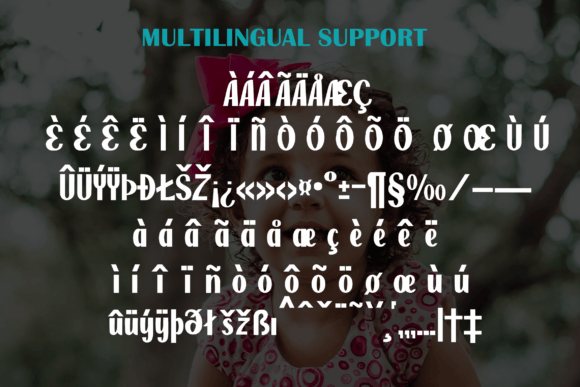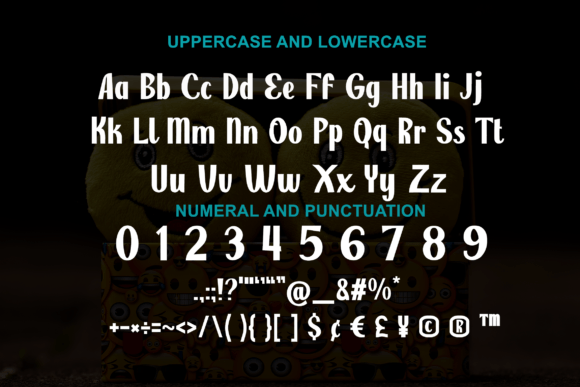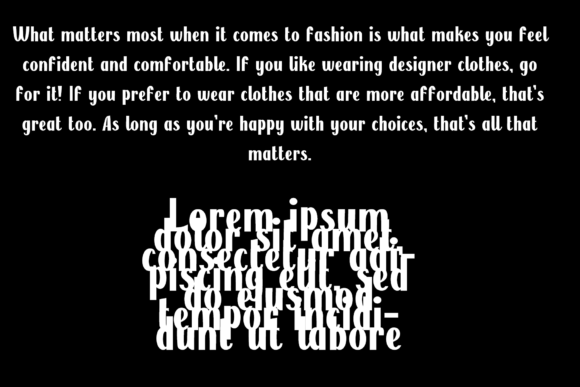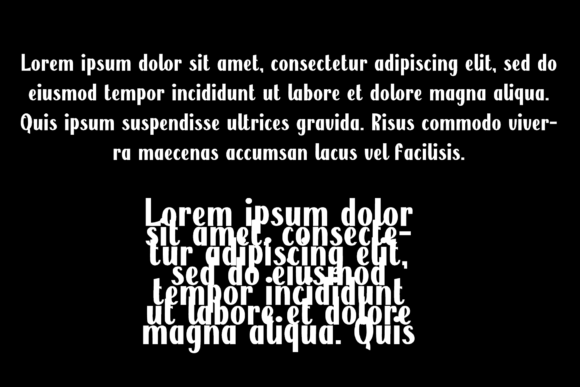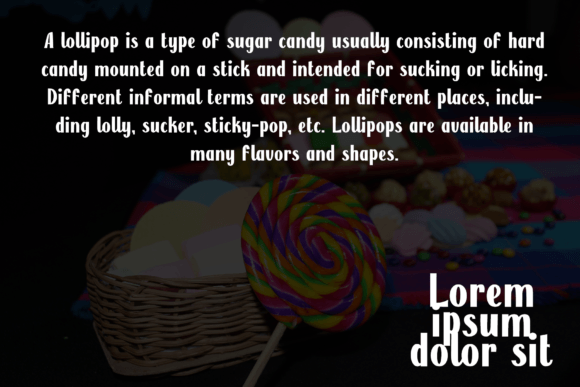
The Perfect Note: Discovering the Cheerup Font
As a designer, have you ever found yourself stuck in a creative rut, searching for that perfect font to bring your project to life? Maybe it’s the late-night brainstorming session, the blank page staring back at you, or the pressure to create something truly special. Whatever the moment, we’ve all been there. But what if we told you that we’ve discovered a font that’s guaranteed to put a smile on your face and a spring in your step?
Meet the Cheerup Font, a beautiful Sans Serif font inspired by the rhythm and melody of music. This playful and casual font is perfect for a wide range of design needs, from movies and music to clothing and greeting cards. Whether you’re a seasoned designer or just starting out, the Cheerup Font is an invaluable tool in your creative arsenal.
Cheerup Font Key Features
- Font Family: Cheerup is a sans-serif font family designed to convey a sense of warmth and friendliness.
- Unique Characteristics: Cheerup features a distinctive rounded edge design, making it perfect for creating engaging and approachable digital content.
Designer Review: Cheerup Font
I recently had the chance to work with the Cheerup Font, and I must say it’s a font that’s full of ✨ personality. One of the things I love about it is its unique, playful feel. The curves and lines are so well-designed that they immediately grab your attention and put a smile on your face. The font is also very versatile, working well in both digital and print applications.
- ✨ The Cheerup Font is perfect for creating a friendly and approachable atmosphere, making it ideal for branding and marketing materials.
- ✨ The font’s versatility means it can be used in a wide range of contexts, from social media graphics to product labels.
- ✨ The Cheerup Font is also a great choice for designers who want to add a bit of whimsy and fun to their designs.
However, there are a few things to be aware of when working with the Cheerup Font. ⚠️ One of the main limitations is that it can be a bit overwhelming if used in large quantities. The font’s playful feel can quickly become too much if overused, so it’s essential to use it in moderation. Additionally, the font may not be suitable for formal or professional applications, as it can come across as a bit too casual.
Overall, I think the Cheerup Font is a great addition to any designer’s toolkit. With its unique personality and versatility, it’s a font that’s sure to bring a smile to your face. Just be sure to use it wisely and in moderation to get the best results.
Tips: Use the Cheerup font for headings and titles to add a touch of playfulness to your design. Experiment with different font sizes and colors to create visual interest.
Tips: Use the Cheerup font for creative and whimsical designs. Experiment with layer blending modes and effects to add depth and interest.
Tips: Use the Cheerup font for presentations and documents that require a friendly and approachable tone. Experiment with font combinations and sizes to create visual hierarchy.
The Cheerup font is perfect for:
- Brand identities and logos
- Marketing materials and social media graphics
- Children’s books and educational materials
- Wedding invitations and event materials
Tips: Use the Cheerup font to add a touch of personality and whimsy to